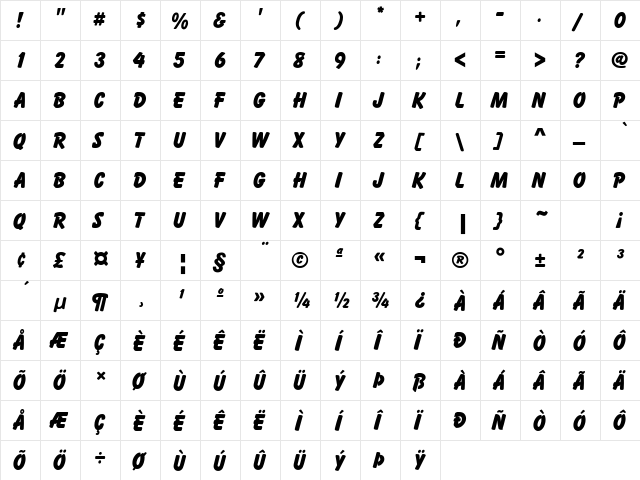
Howzat Display Caps SSi Regular
Design Context for Howzat Display Caps SSi Typeface
Howzat Display Caps SSi is built around its visual character rather than neutral utility — its distinctive forms are designed to make an impression at display sizes.
Font Pairing: Pair with a clean neutral sans-serif for body copy to let Howzat Display Caps SSi's character lead without overwhelming the composition.
Pro Tip: Use Howzat Display Caps SSi exclusively at display sizes — it was designed to be seen, not read at length. Let a neutral companion handle body copy.